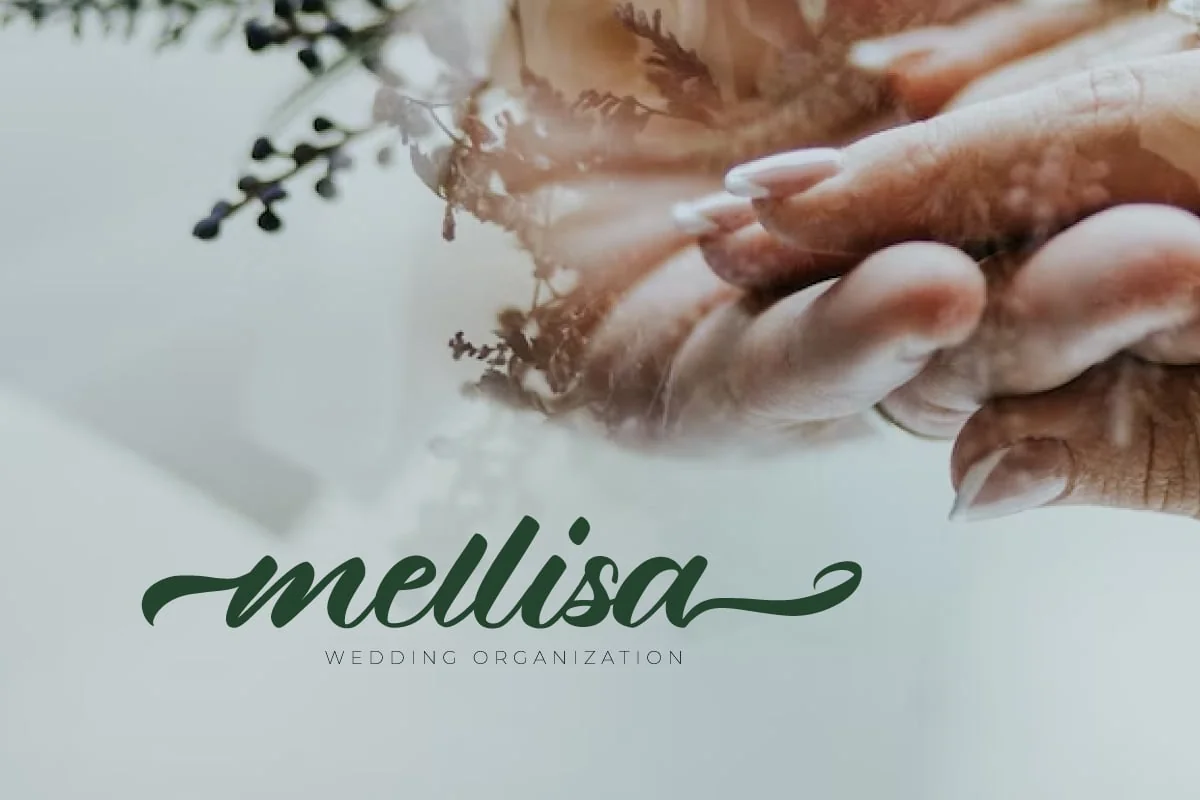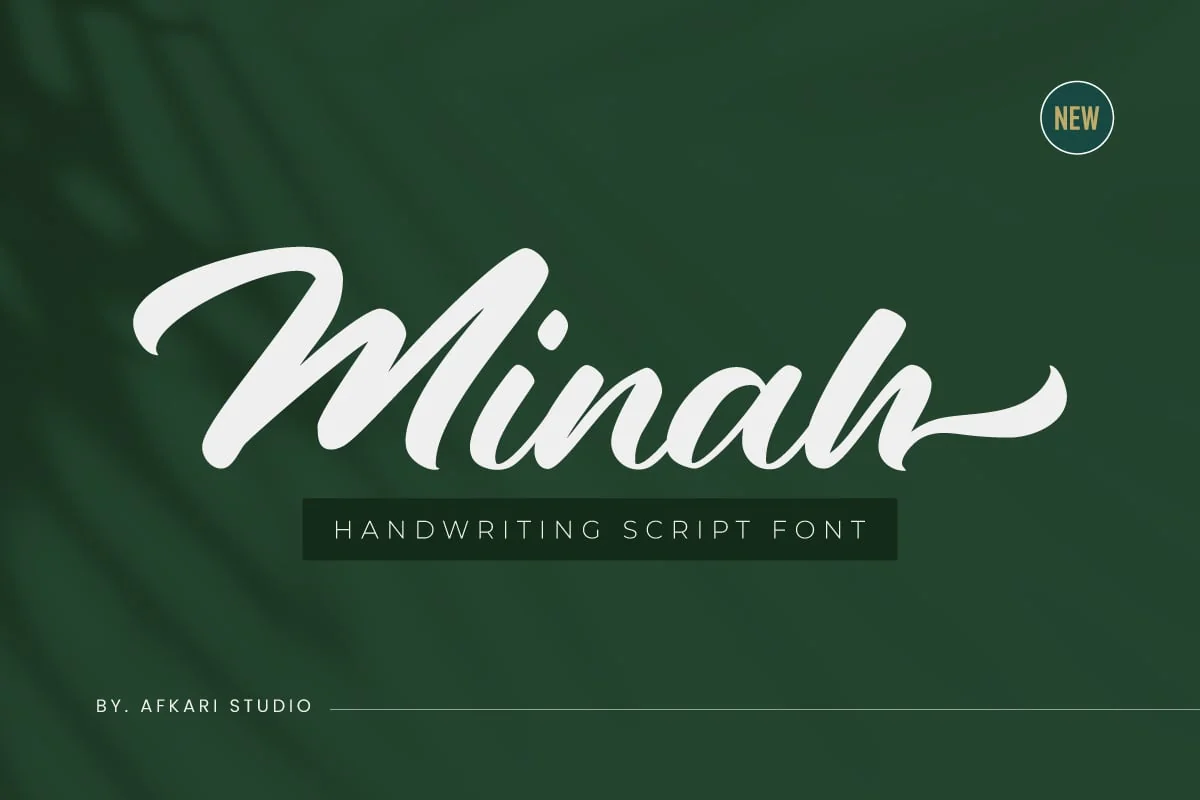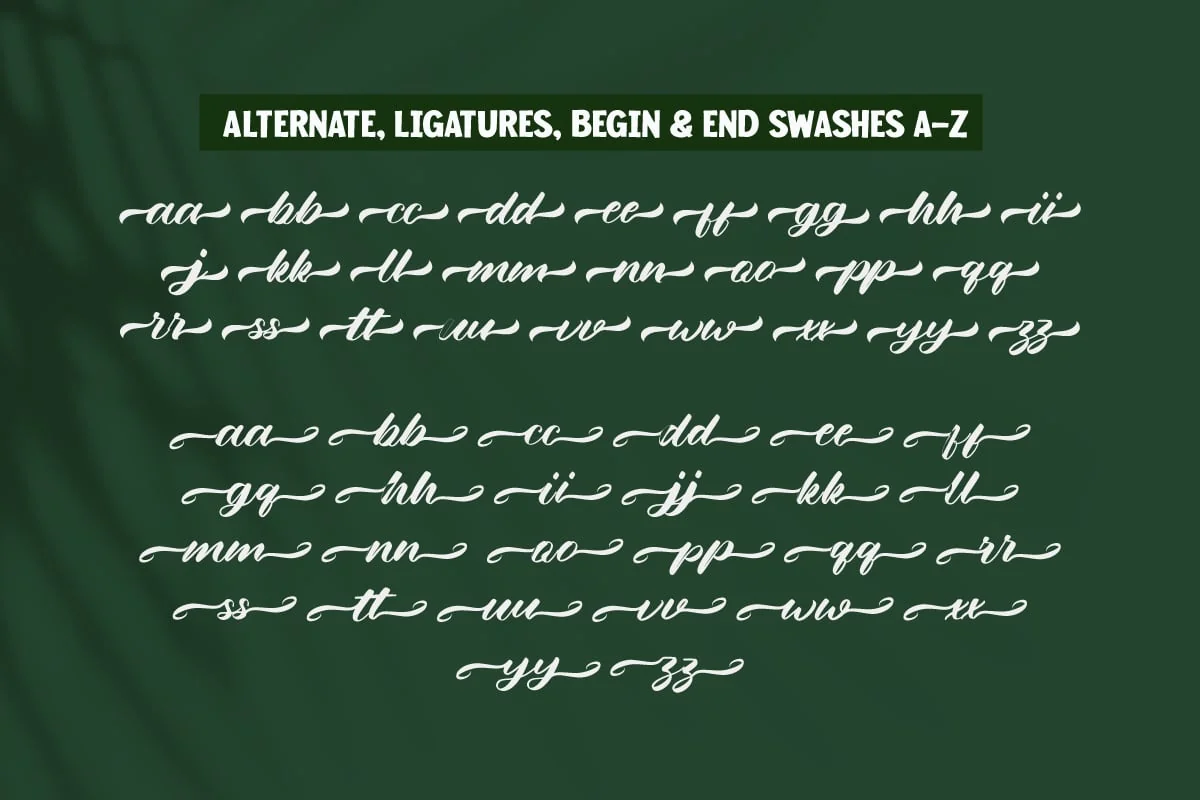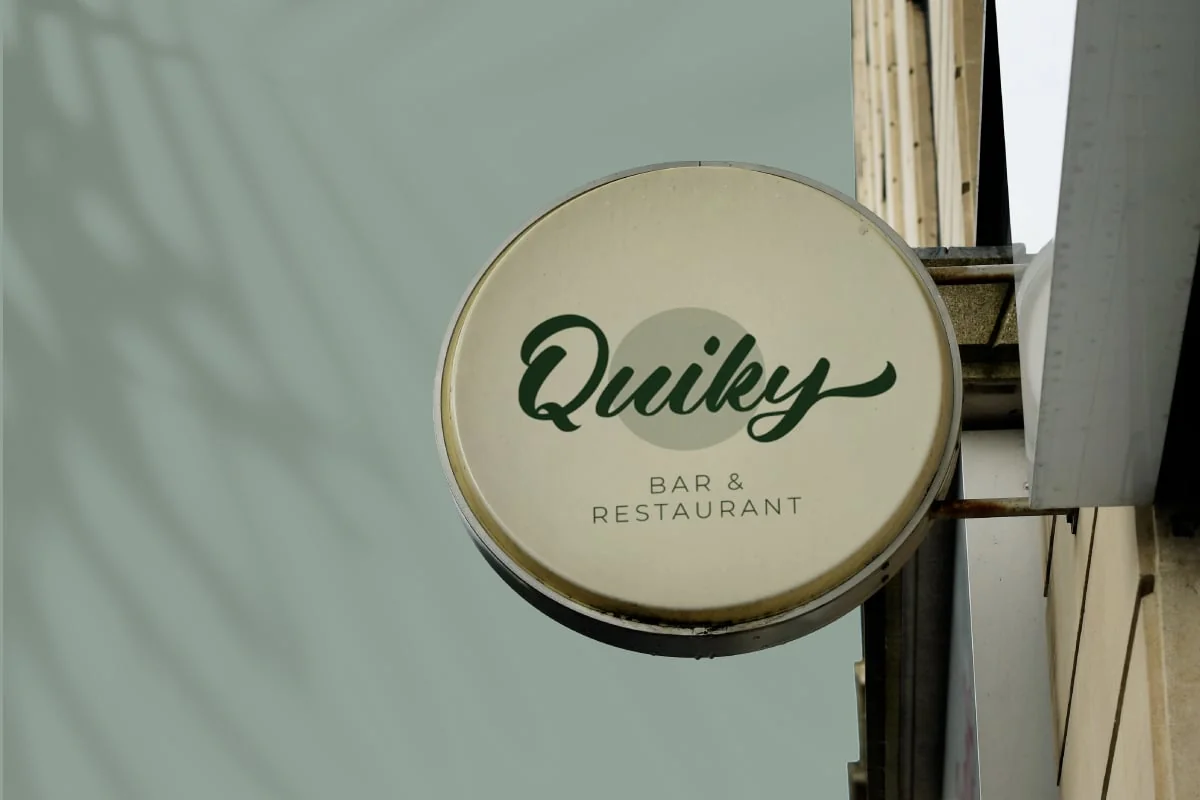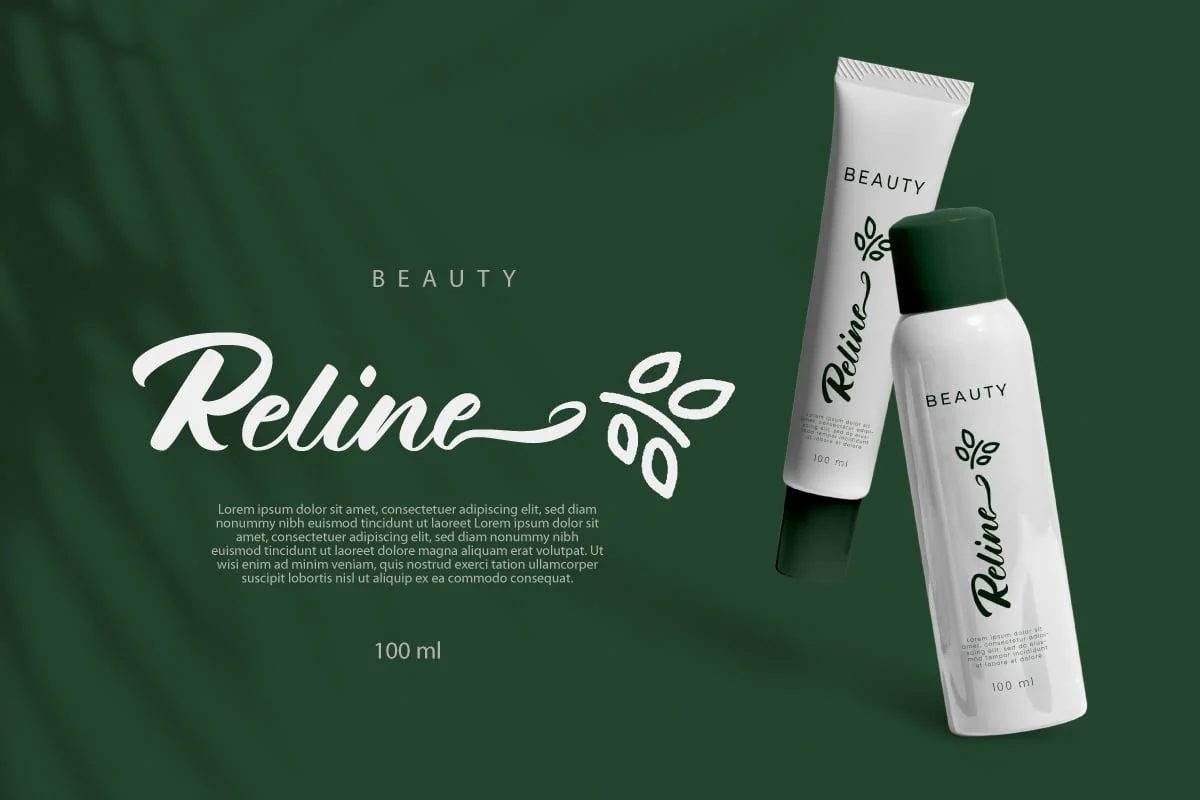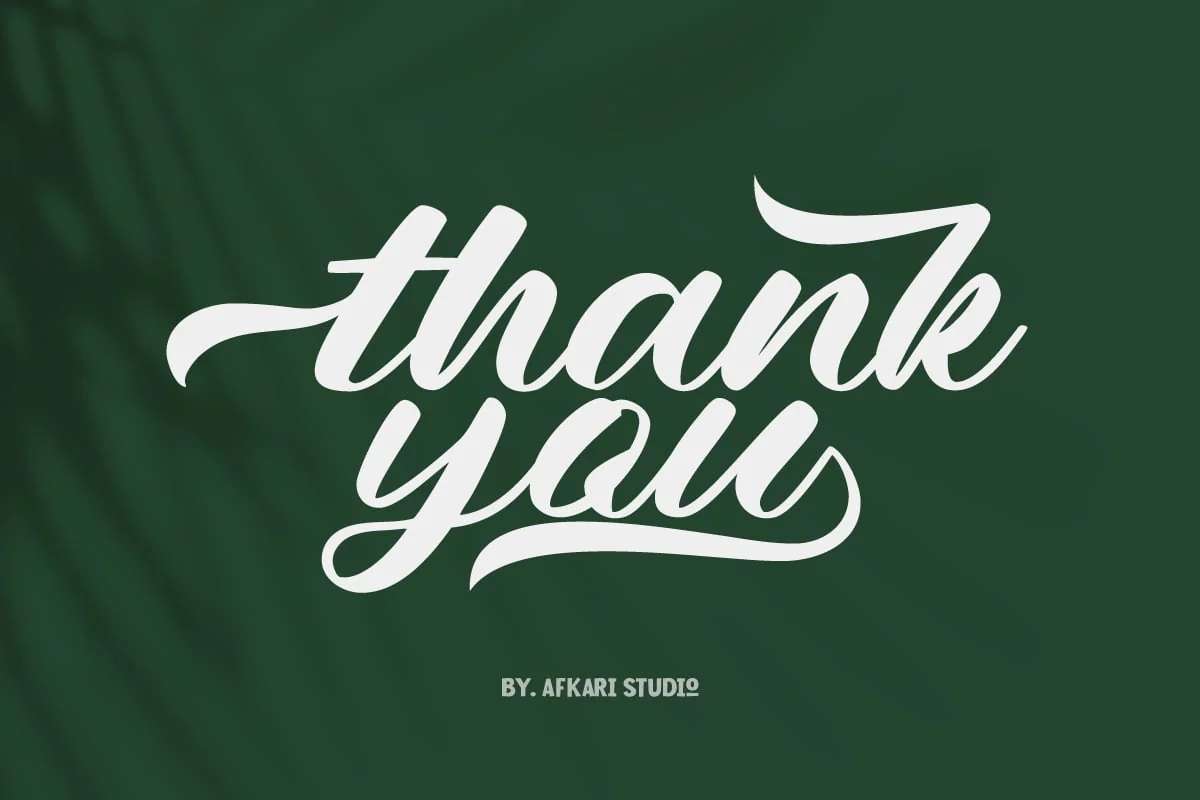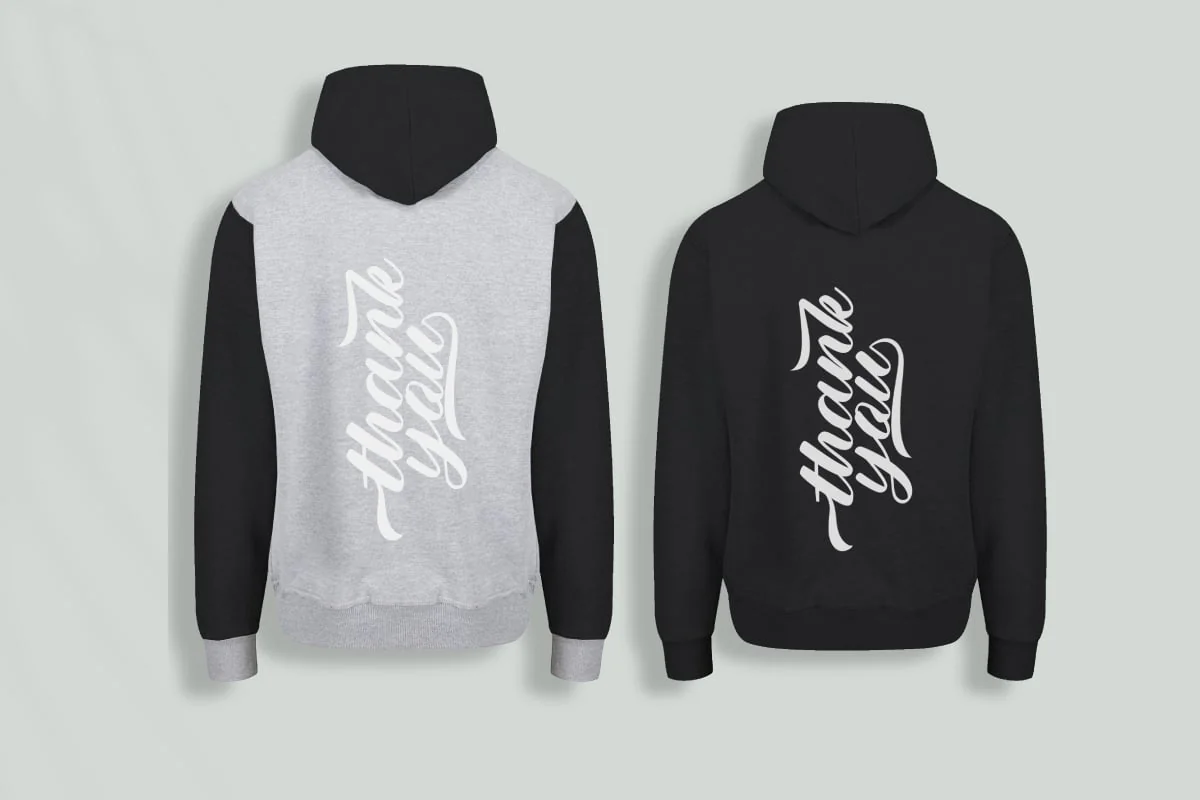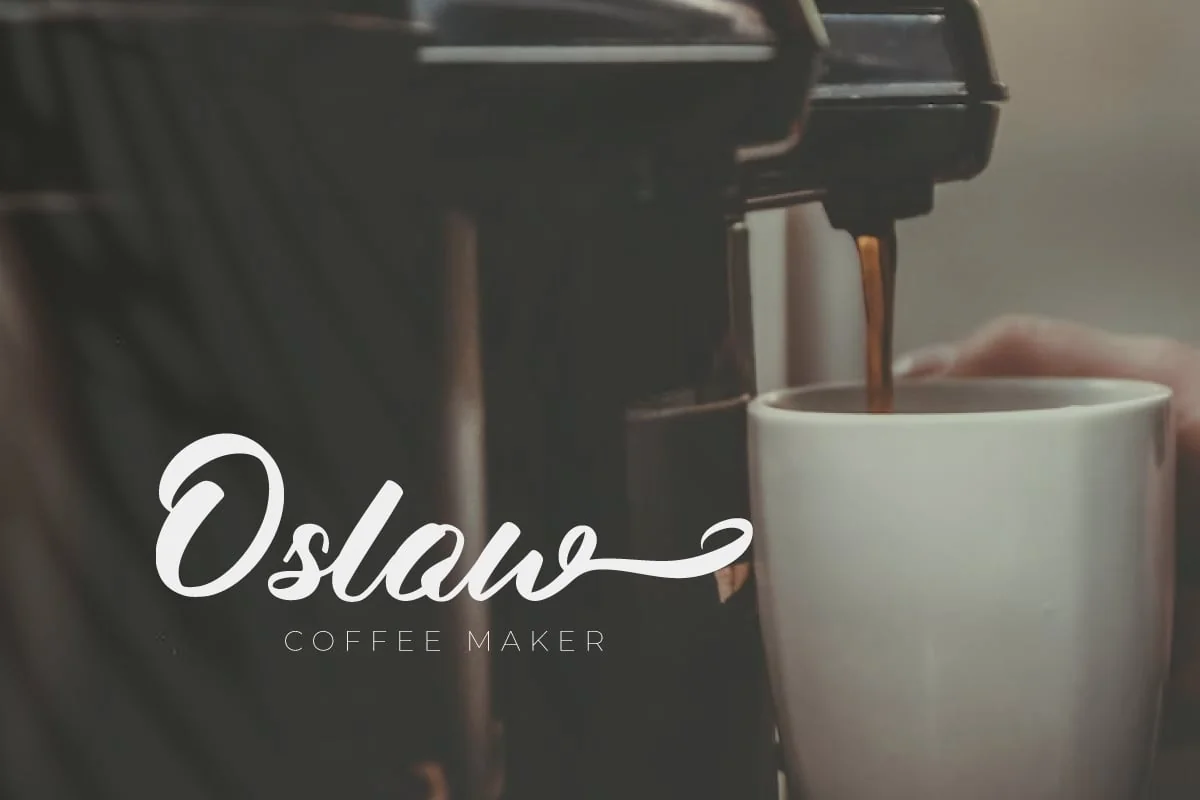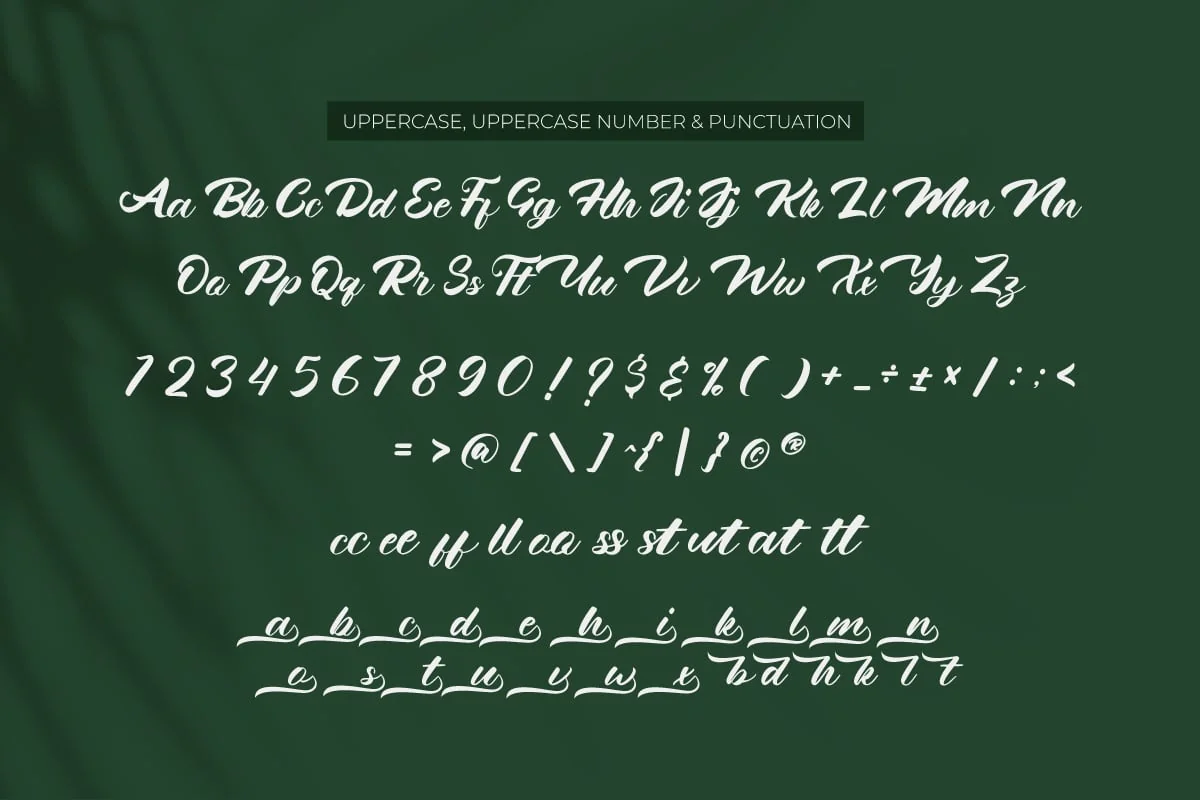
Minah – Handwriting Script Font
Minah is the latest modern handwriting Script font made as naturally as possible, minah modern script font is perfectly made to be applied in logo brands, invitations, labels, magazines title, books, greeting cards, wedding cards, packaging, fashion, makeup, stationery, novels, labels or any type of advertising purpose.
Minah Handwriting Script font was simple and casual that contained Open Type features such as Stylistic Sets, Stylistic Alternates, Contextual Alternate, and ligatures.
This modern script font also contains begin, middle, and ending swash which makes it very easy to use, it will help you to create your own customized design. Just rely on your creativity!
Features;
- Uppercase, Lowercase, Number, and Punctuation
- Special alternates and ligatures
- Mültîlíñgúãl Sùppört for; ä ö ü Ä Ö Ü ß ¿ ¡